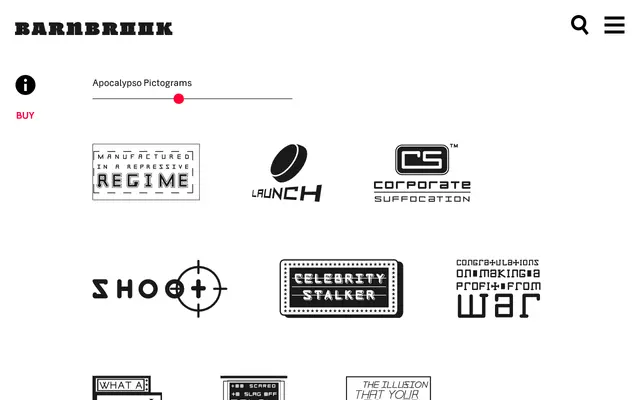
Apocalypso
Barnbrook · 1997
A pictogram and cross font conceived as an art project around millennial anxiety, first published by Barnbrook in 1997.
Originally released in 1997 in the run-up to the millennium, Apocalypso is less a workhorse typeface than a conceptual artefact containing crosses and pictograms organised around themes of end-times. The crosses serve as decorative ornaments within typographic layouts, whilst the pictograms illustrate apocalyptic scenarios that Barnbrook describe as prophetically close to the present day. The name merges 'apocalypse' with 'calypso', nodding to the idea of making light of catastrophe.
Apocalypso is a symbol and pictogram font rather than a text typeface, containing crosses and illustrative glyphs. It fits best under display as a decorative and conceptual dingbat family.